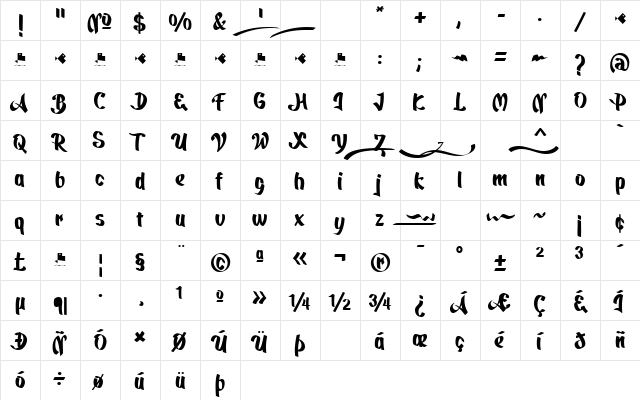
Quickat Regular Font Preview
Quickat Regular
Quickat Regular Font Details
| Foundry | deFharo |
| Designer | Fernando Haro |
Design Context for Quickat Typeface
Quickat is a composed and adaptable typeface that performs quietly and consistently across a wide range of design contexts.